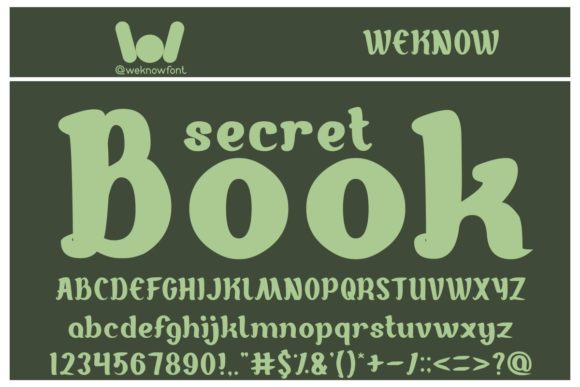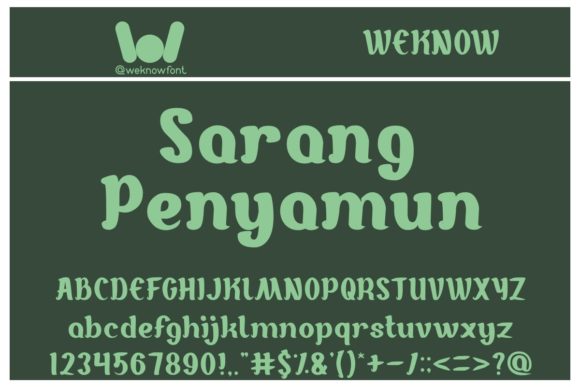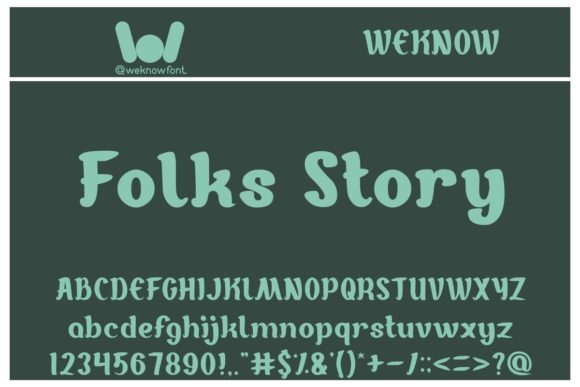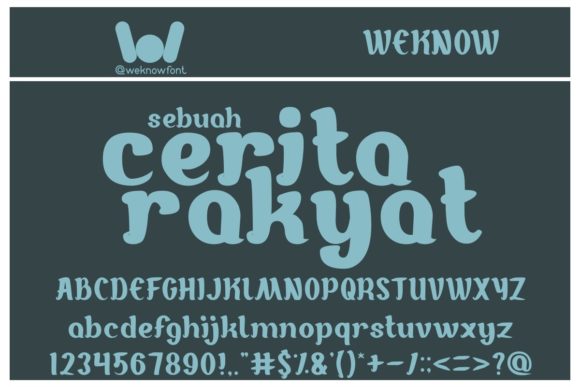
Introduction to Goddess of Fortune Font
Goddess of Fortune is a cool, assertive and neat display font.
This original look will appeal to a wide range of crafty ideas, from letterheads and titles, to stationery .